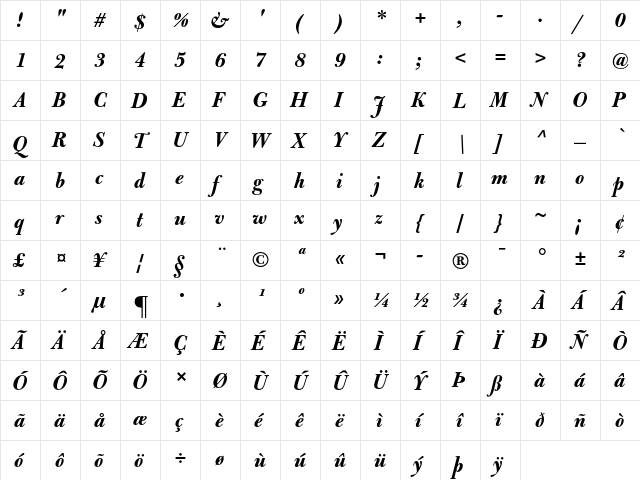
Bulmer MT Bold Italic Display Font Preview
Design Context for Bulmer MT Typeface
Bulmer MT is built around its visual character rather than neutral utility — its distinctive forms are designed to make an impression at display sizes. Its italic angle brings a sense of urgency and motion to the letterforms. The heavy weight commands attention and anchors typographic hierarchies.
Font Pairing: Pair with a clean neutral sans-serif for body copy to let Bulmer MT's character lead without overwhelming the composition.
Pro Tip: Treat Bulmer MT as the centrepiece of your typographic hierarchy. One strong heading set in a decorative face can carry an entire layout.